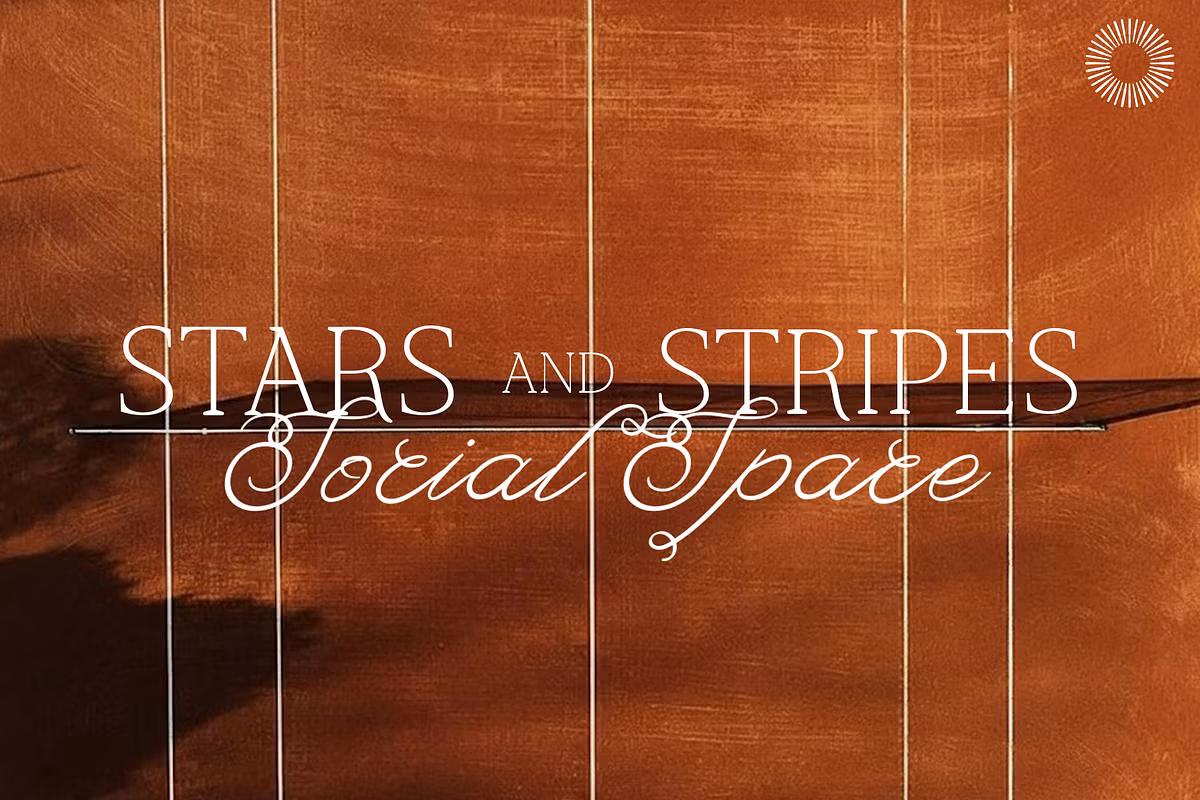
Celesty: Elegant Romantic Font Duo for Timeless Typography Design
Introducing Celesty: A Romantic Font Duo
Celesty is a really beautiful font that has two different styles. It’s elegant and romantic, which makes it perfect for things like branding and decorative design. The font has a script part that flows nicely and a serif part that’s modern, which together create a nice balance. This font is great for making people feel something and for giving a sense of high-end quality, which is why it’s a good choice for many different kinds of creative projects.
Design Style of Celesty
The idea behind Celesty’s design is a mix of old-school romance and classy elegance. When you put these two styles together, they create a look that really stands out and makes any design project look great. The first part of Celesty is the Elegant Swash Script, which has long, flowing lines and smooth curves. This script is just right for when you want to add some emotion and personality to something, like a wedding invitation or a brand’s name. It’s all about creating a special feel that’s both personal and beautiful.
The combination of classic and elegant elements in Celesty’s design makes it perfect for adding a touch of sophistication to any project. Whether you’re working on a wedding invitation, a brand’s logo, or any other design project, Celesty’s unique blend of styles is sure to make it look amazing.
The Modern Ornamental Serif is a great match for the script, with its simple yet fancy letters that bring a sense of calm and elegance. It’s really good for smaller titles, slogans, and extra text because it’s easy to read and still looks stylish. When you use these two fonts together, you get a complete system that lets designers easily mix feelings and organization, making their work look great.
Celesty is a really versatile font that comes with lots of features to make designing easy. You get both big and small letters, numbers, and basic punctuation marks, so you have everything you need to create something amazing. Plus, it supports multiple languages, at least the basic Latin characters, which means you can use it to connect with people from different places and make your designs more accessible to a wider audience. This makes it perfect for projects where you want to reach lots of people and make a big impact.
Best Use Cases for Celesty
Celesty is specifically designed for display and decorative projects, excelling in areas where visual impact is crucial. Here are some of the best use cases to consider:
- Romantic Branding & Logo Design: The flowing script is perfect for brand names that want to evoke feelings of luxury and femininity.
- Wedding Invitations & Stationery: Celesty adds a touch of elegance to wedding-related designs, making it a favorite among brides and event planners.
- Beauty, Fashion, and Luxury Brands: This font duo is ideal for brands looking to convey sophistication and style in their marketing materials.
- Packaging & Product Labels: Use Celesty for creating eye-catching labels that stand out on the shelves.
- Editorial Headlines: The script and serif pairing offers a unique approach to editorial layouts, perfect for magazines and blogs.
- Quotes & Social Media Graphics: Create visually appealing graphics that engage and inspire your audience.
- Posters, Greeting Cards, and Invitations: Whether for personal or commercial use, Celesty makes your designs memorable.
Pairing Suggestions for Celesty
To maximize the potential of Celesty in your designs, consider these pairing suggestions:
- Script with Serif: Use the Elegant Swash Script for headlines and the Modern Ornamental Serif for body text. This combination creates a natural hierarchy, drawing the viewer’s eye to important information.
- Complementary Colors: Pair Celesty with soft pastel colors or rich jewel tones to enhance its romantic appeal.
- Textures and Patterns: Use Celesty alongside floral patterns or textured backgrounds for wedding invitations or branding projects to add depth and interest.
By thoughtfully pairing Celesty with suitable design elements, you can create visually stunning results that resonate with your audience.
Celesty is not just a pair of fonts, it’s a way to add elegance and romance to your designs. It combines a beautiful, flowing script with a modern serif font, giving you the tools to create designs that really speak to people. This font duo is perfect for things like branding, weddings, and high-end products, because it’s versatile and sophisticated. By using Celesty, you can create typography that’s not just pretty, but also tells a story and evokes emotions. It’s a great way to take your designs to the next level and make them truly special. Whether you’re working on a luxury brand or a wedding invitation, Celesty can help you create something that’s both beautiful and meaningful. So why not give it a try and see what kind of stunning designs you can come up with?